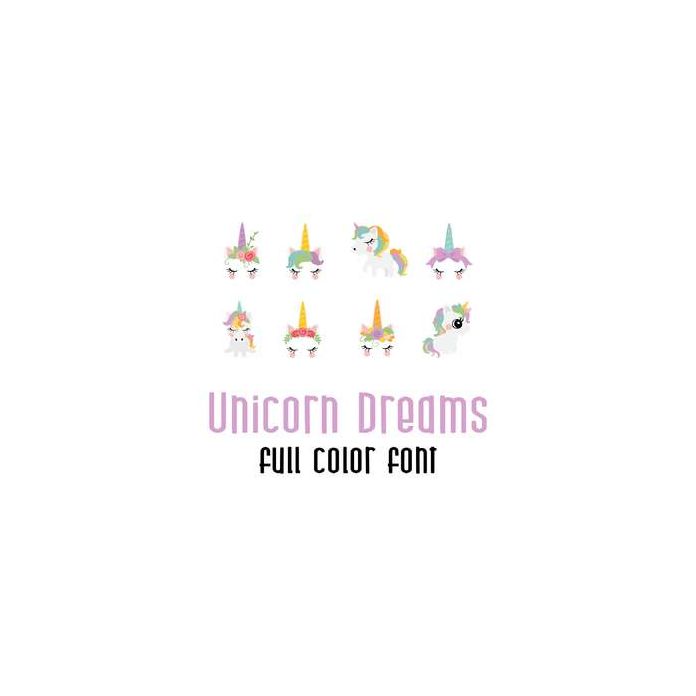
This adorable full color doodlebat font features adorable unicorns and unicorn faces. Perfect for cards, crafts, gifts, decor, scrap book pages, planner stickers and more!